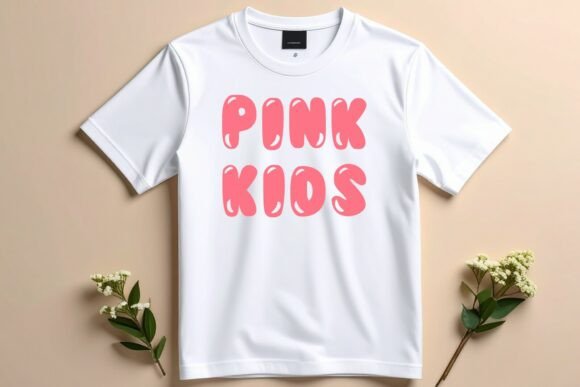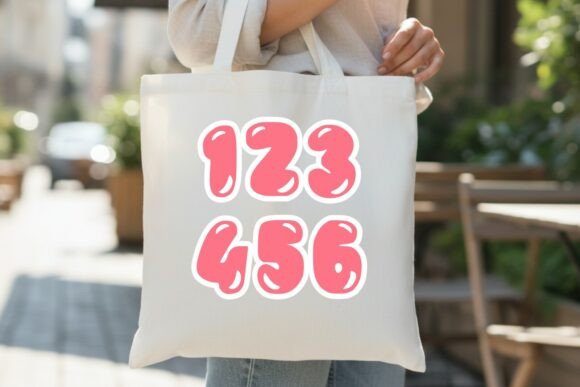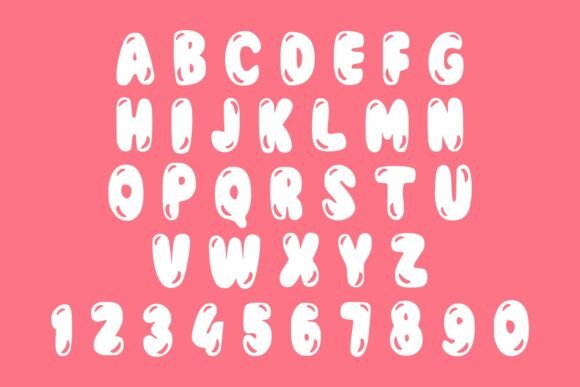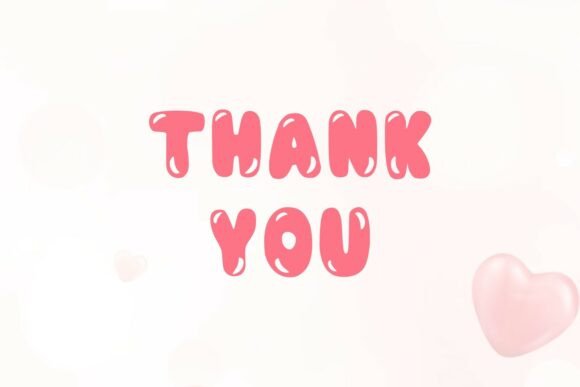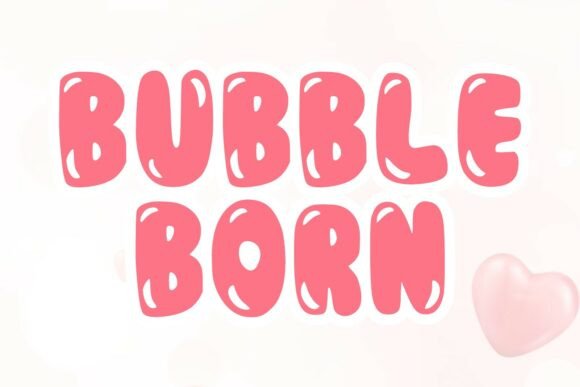
Bubble Born Font: The Ultimate Choice for Playful and Whimsical Designs
Are you looking for a font that can add a touch of fun and playfulness to your designs? Look no further than Bubble Born, a cute and playful bubble display font that is perfect for kids’ designs, stickers, posters, greeting cards, social media graphics, and creative craft projects.
What is Bubble Born Font?
Bubble Born is a unique and charming font that features soft, rounded, and puffy letterforms. Its fun and cheerful style makes it an ideal choice for designers and crafters who want to add a joyful and friendly personality to their designs. The font’s playful and whimsical nature makes it perfect for projects that require a lighthearted and carefree approach.
Key Features of Bubble Born Font
• Soft and Rounded Letterforms: The font features soft and rounded letterforms that give it a puffy and bubbly appearance.
• Fun and Cheerful Style: The font’s fun and cheerful style makes it perfect for kids’ designs, stickers, posters, and greeting cards.
• Playful and Whimsical: The font’s playful and whimsical nature makes it ideal for creative craft projects and social media graphics.
• Easy to Read: The font is easy to read, making it perfect for designs that require a clear and legible text.
Uses of Bubble Born Font
Bubble Born font is perfect for a variety of design projects, including:
• Kids’ Designs: The font is perfect for kids’ designs, such as children’s books, nursery rhymes, and kids’ party invitations.
• Stickers and Posters: The font’s playful and whimsical nature makes it perfect for stickers and posters that require a fun and eye-catching design.
• Greeting Cards: The font is ideal for greeting cards, such as birthday cards, get-well cards, and thank-you cards.
• Social Media Graphics: The font is perfect for social media graphics, such as Facebook posts, Instagram stories, and Twitter headers.
• Creative Craft Projects: The font is ideal for creative craft projects, such as scrapbooking, card making, and DIY crafts.
Why Choose Bubble Born Font?
There are many reasons why you should choose Bubble Born font for your design projects. Here are a few:
• Unique and Charming: The font is unique and charming, making it perfect for designers who want to add a touch of personality to their designs.
• Versatile: The font is versatile and can be used for a variety of design projects, from kids’ designs to social media graphics.
Tips for Using Bubble Born Font
Here are a few tips for using Bubble Born font:
• Use it for Headings: The font is perfect for headings and titles, making it ideal for posters, stickers, and social media graphics.
• Mix it with Other Fonts: The font can be mixed with other fonts to create a unique and interesting design.
• Use it for Kids’ Designs: The font is perfect for kids’ designs, such as children’s books and nursery rhymes.
• Experiment with Colors: The font can be used with a variety of colors to create a fun and playful design.
In conclusion, Bubble Born font is a unique and charming font that is perfect for designers and crafters who want to add a touch of fun and playfulness to their designs. Its soft and rounded letterforms, fun and cheerful style, and playful and whimsical nature make it ideal for kids’ designs, stickers, posters, greeting cards, social media graphics, and creative craft projects. With its ease of use, versatility, and high-quality design, Bubble Born font is a must-have for any designer or crafter looking to add a little charm and sweetness to their designs.